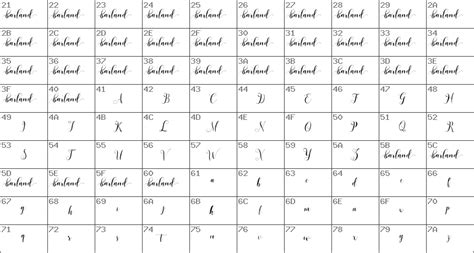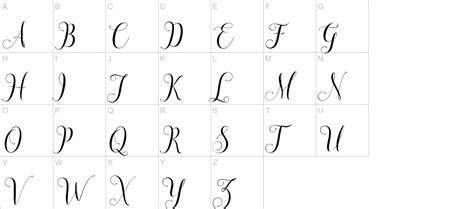
Honilad Script Font Free : Honilad Script Font - Fontlot.com / August 18, 2019 by free fonts leave a comment.. Nov 23, 2016 fonts 1033 0. Introduce my new font honilad calligraphy typeface is a unique blend of classic and modern font. Honilad script font duo introduce my new font honilad calligraphy typeface is a unique blend of classic and modern font. Licensed for personal and commercial use. Homeland is a beautiful signature font with the natural flow.
This script is perfect for printable works such as wedding invitation, escort card, table number, packaging, and greeting card. Introduce my new font honilad calligraphy typeface is a unique blend of classic and modern font. Imperfect style ups and downs, like a dance letters, smooth, clean and simple. Download honilad demo font for windows. Youtube sans font free download. Homeland comes with uppercase, lowercase. Honilad script free demo is a unique blend of classic and modern font. Registered members don't get captcha.
Homeland signature style perfectly on invitations, logotype, branding, art quote, cards, product packaging, headers, letterhead, apparel design, label, and etc.
Version 1.000 postscript font name file name: Script typefaces are based upon the varied and often fluid stroke created by handwriting, pretty much like the cursive fonts just typically more elegant. They are organized into highly regular formal types similar to cursive writing and looser, more casual scripts. Nov 23, 2016 fonts 1033 0. This script is perfect for printable works such as wedding invitation, escort card, table number, packaging, and greeting card. Homeland signature style perfectly on invitations, logotype, branding, art quote, cards, product packaging, headers, letterhead, apparel design, label, and etc. Honilad demo font subfamily identification: Registered members don't get captcha. Honilad script free demo is a unique blend of classic and modern font. Introduce my new font honilad calligraphy typeface is a unique blend of classic and modern font. Download from free file storage. This script is perfect for printable works such as wedding invitation, escort card, table number, packaging, and greeting card. Honilad script font duo introduce my new font honilad calligraphy typeface is a unique blend of classic and modern font.
$ free > personal use. Honilad script font introduce my new font honilad script is a unique blend of classic and modern font. It offers you imperfect style ups and downs, like a dancing letters, smooth yet simple. It offers you imperfect style ups and downs, like a dancing letters, smooth yet simple. They are organized into highly regular formal types similar to cursive writing and looser, more casual scripts. Free free font honilad script font otf true type ttf typefaces typography woff. Download free honilad font by barland from fontsly.com. Similar fonts for homeland from myfonts.com.
It offers you imperfect style ups and downs, like a dancing letters, smooth yet simple.
This script is perfect for printable works such as wedding invitation, escort card, table number, packaging, and greeting card. Hudson ny font free download. Honilad script font duo introduce my new font honilad calligraphy typeface is a unique blend of classic and modern font. 35779 downloads free for personal use. Imperfect style ups and downs, like a dance letters, smooth, clean and simple. August 18, 2019 by free fonts leave a comment. This script is perfect for printable works such as wedding invitation, escort card, table number, packaging, and greeting card. Nov 23, 2016 fonts 1033 0. This script is perfect for printable works such as wedding invitation, escort card, table number, packaging, and greeting card. Similar free fonts for homeland. Licensed for personal and commercial use. Resolve the captcha to access the links! It offers you imperfect style ups and downs, like a dancing letters, smooth yet simple.
This demo font is for personal use only! Script typefaces are based upon the varied and often fluid stroke created by handwriting, pretty much like the cursive fonts just typically more elegant. As well, you are going to love our website and what we can provide. But any donation are very appreciated. Grab your free fonts for a limited time only.
Honilad Script | 4 Font & Bonus ~ Script Fonts on Creative ... from cmkt-image-prd.global.ssl.fastly.net
Nov 23, 2016 fonts 1033 0. It offers you imperfect style ups and downs, like a dancing letters, smooth yet simple. Download free honilad font by barland from fontsly.com. Honilad script font duo introduce my new font honilad calligraphy typeface is a unique blend of classic and modern font. 2017/in fonts, freebies /by peterolexa. As soon as you enter your details below you will. This script is perfect for printable works such as wedding invitation, escort card, table number, packaging, and greeting card. Grab your free fonts for a limited time only.
Imperfect style ups and downs, like a dance letters registering is fast, easy and free.
Download honilad demo font for windows. Honilad script free demo is a unique blend of classic and modern font. Licensed for personal and commercial use. It offers you imperfect style ups and downs, like a dancing letters, smooth yet simple. Homeland fonts script 1814321 otf. Imperfect style ups and downs, like a dance. Sep 20, 2017 fonts 2742 0. $ free > personal use. Download free honilad font by barland from fontsly.com. Nov 23, 2016 fonts 1033 0. This script is perfect for printable works such as wedding invitation, escort card, table number, packaging, and greeting card. Free fonts, fonts, download free fonts, font lot. Imperfect style ups and downs, like a dance letters, smooth, clean and simple.